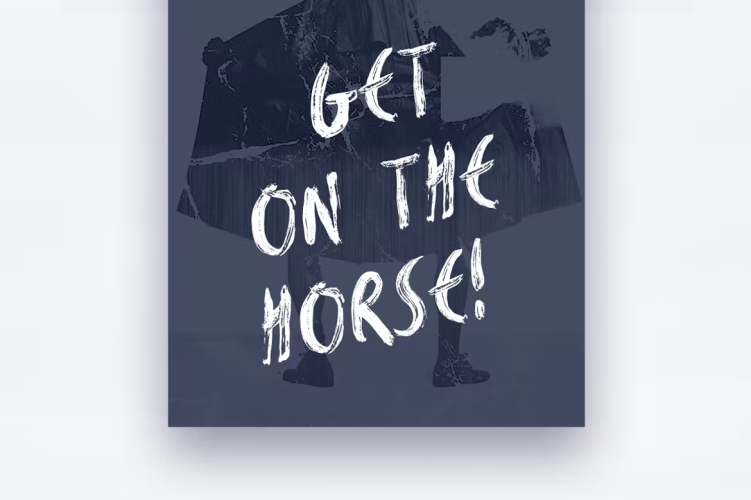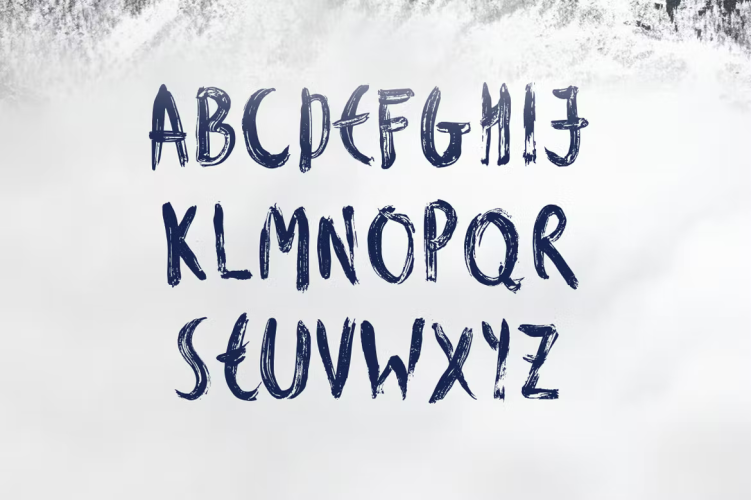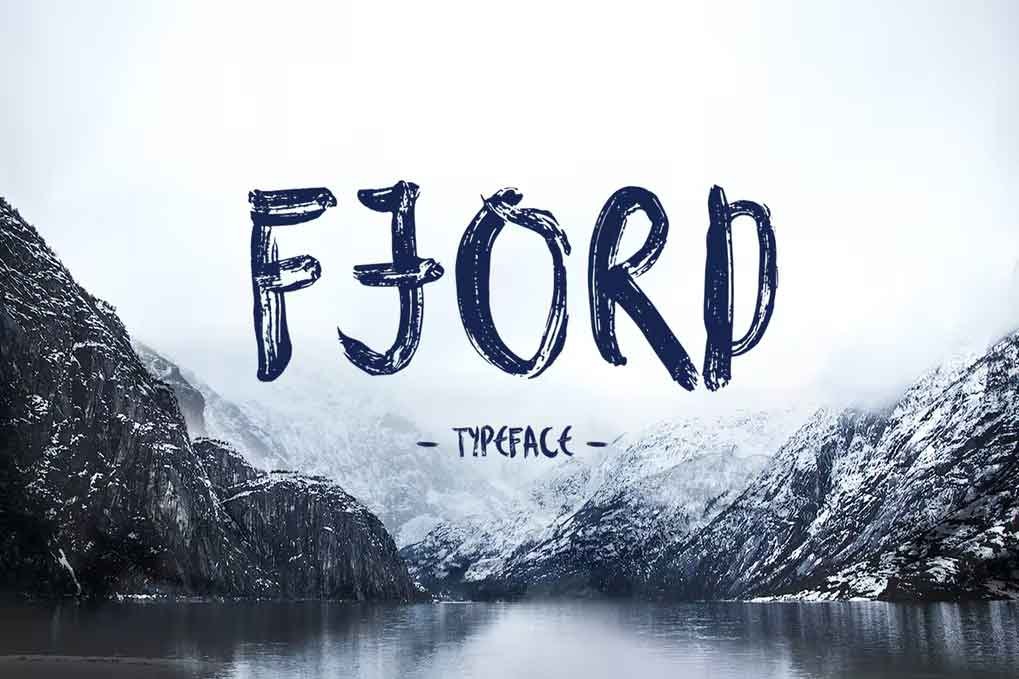
Fjord Brush Font
Where Fjord Brush Font works best
A short phrase in Fjord Brush Font carries warmth that a typeset sans cannot fake; keep the rest of the card plain.
Chalkboard-style headings in Fjord Brush Font make a menu feel hand-made. Keep the dish descriptions in a simple face so prices stay readable.
One line of Fjord Brush Font over a photo is enough; the script carries the tone and the caption does the work.
What kind of work does Fjord Brush Font suit?
It sits in the Script And Handwritten group and reads as brush, handwritten, professional, script. That makes it a candidate wherever those qualities help: headings, packaging, social graphics and brand work. Set it at the size you plan to use before deciding.